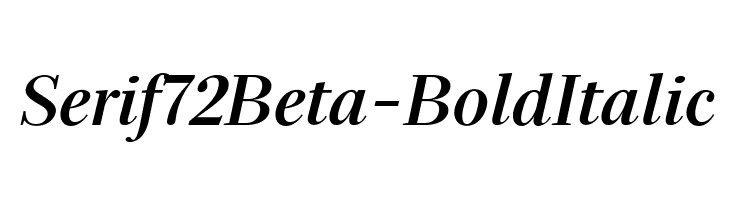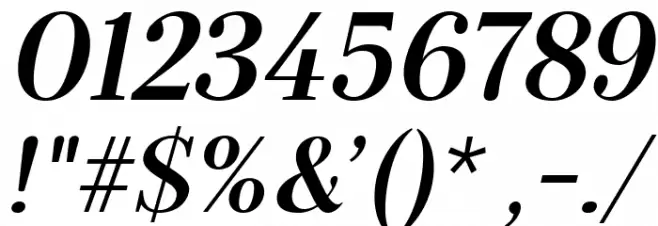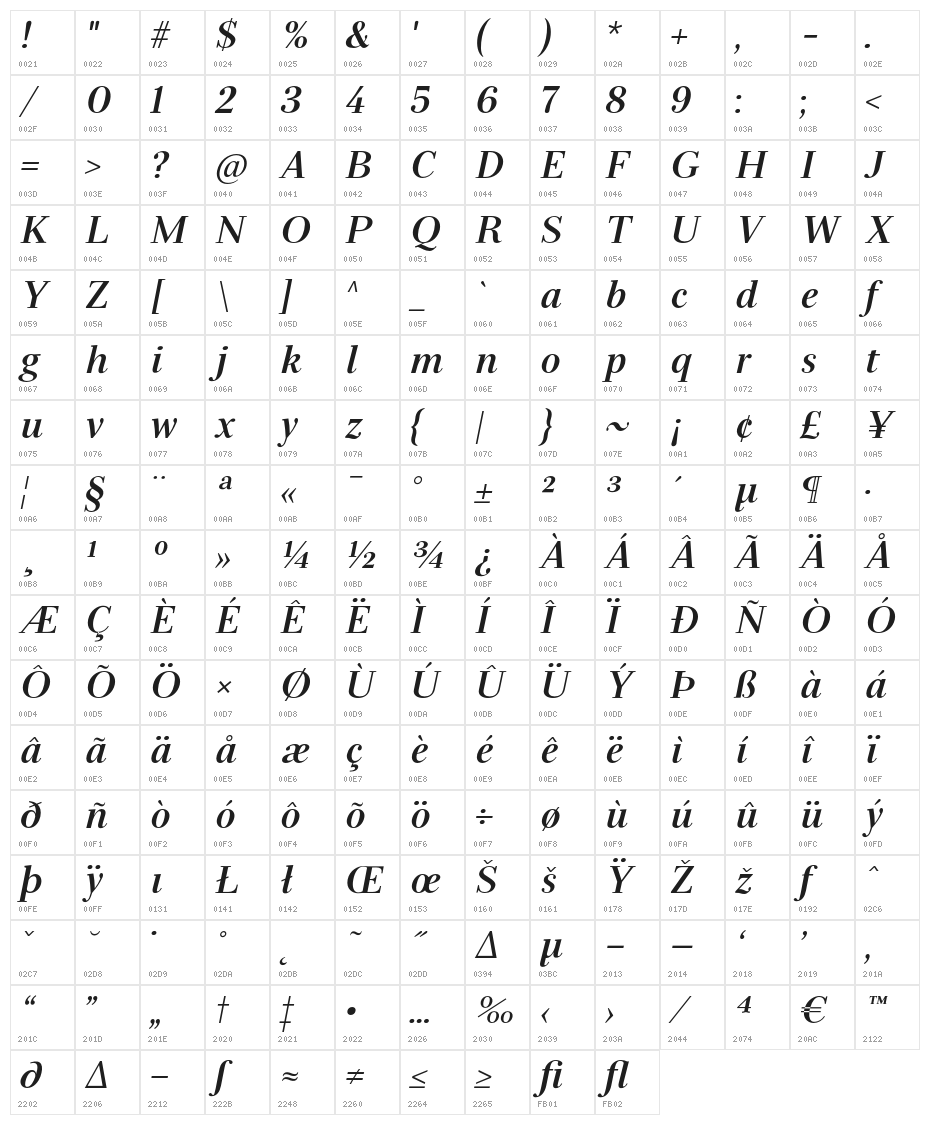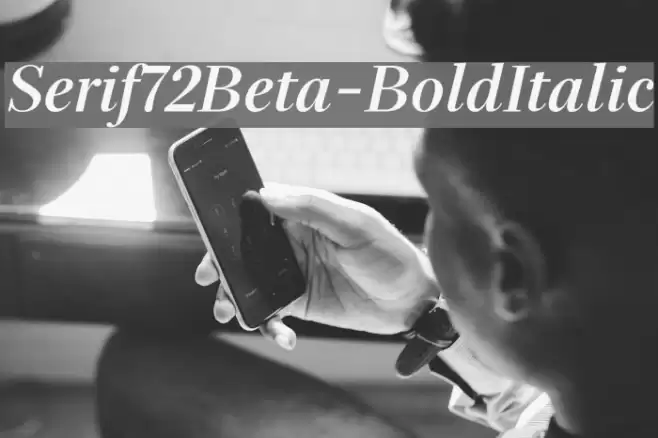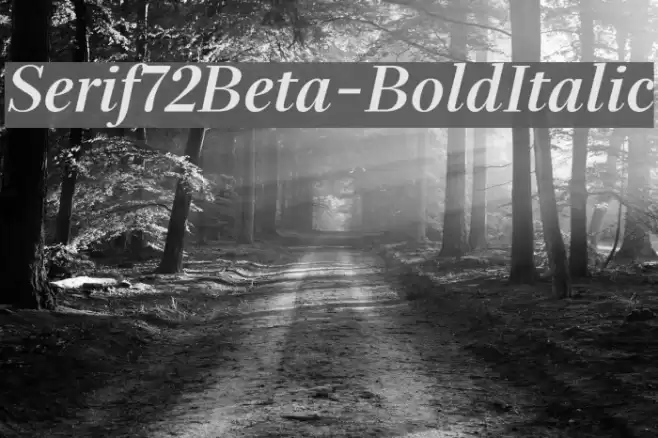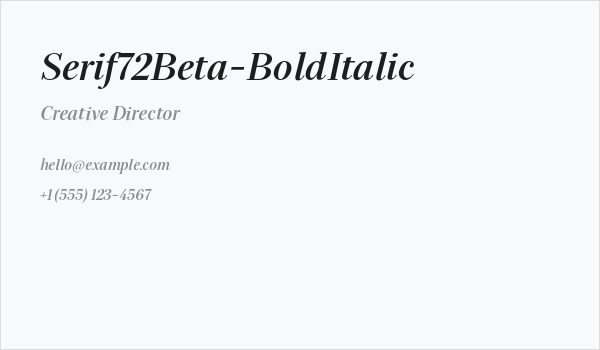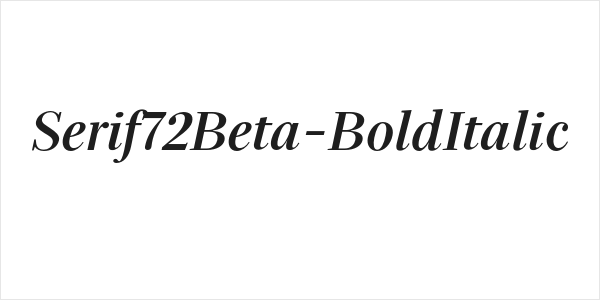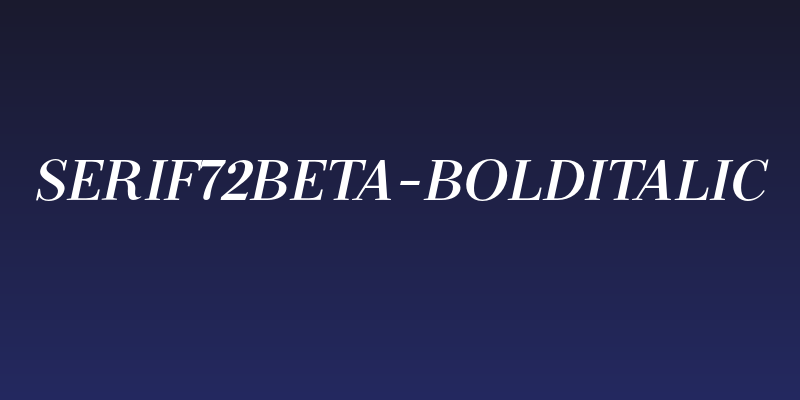
Serif72Beta-BoldItalic Font
Serif72Beta-BoldItalic Description
This font exhibits a classic serif style with a bold and italicized appearance. The letters are elegantly slanted, giving a sense of motion and sophistication. The serifs are pronounced, adding a traditional touch, while the bold weight ensures strong visibility and impact. The uppercase letters are stately and commanding, while the lowercase letters maintain a consistent flow. Numbers are clear and well-defined, making them suitable for various applications. Special characters are included, enhancing the font's versatility. Overall, this font combines traditional serif elements with a modern boldness and italic flair, making it suitable for a range of design projects.
| Use Case | Headlines, Logos, Editorial design |
| Proposed Projects | Ideal for book covers, editorial design, branding, and formal invitations. |